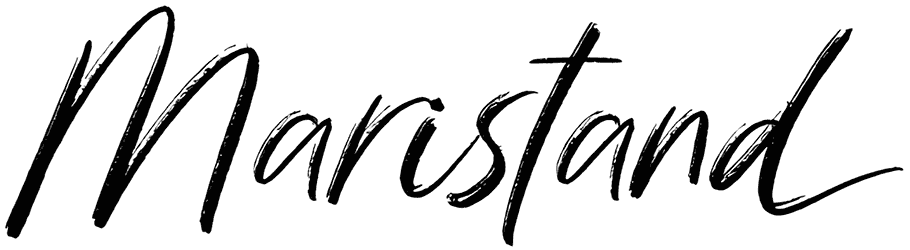
Maristand Font
With a glance, you are going to understand that Maristand, as a brush font, can nicely give a real and present-time face to the writ. This fresh font with its hand-lettering style doesn’t support numerals. Examine it on your next design, such as flyers, postcards, invitation designs, and many more. Maristand is one of those unique options that you should not miss.
Maristand is a beautiful brush font. It brings a elegant and attractive typeface. Made for any professional project branding. It is the best for logos, branding, wedding and quotes.-Link to purchase commercial license with an option: https://ditatype.com/product/maristand-beautiful-brush-font/